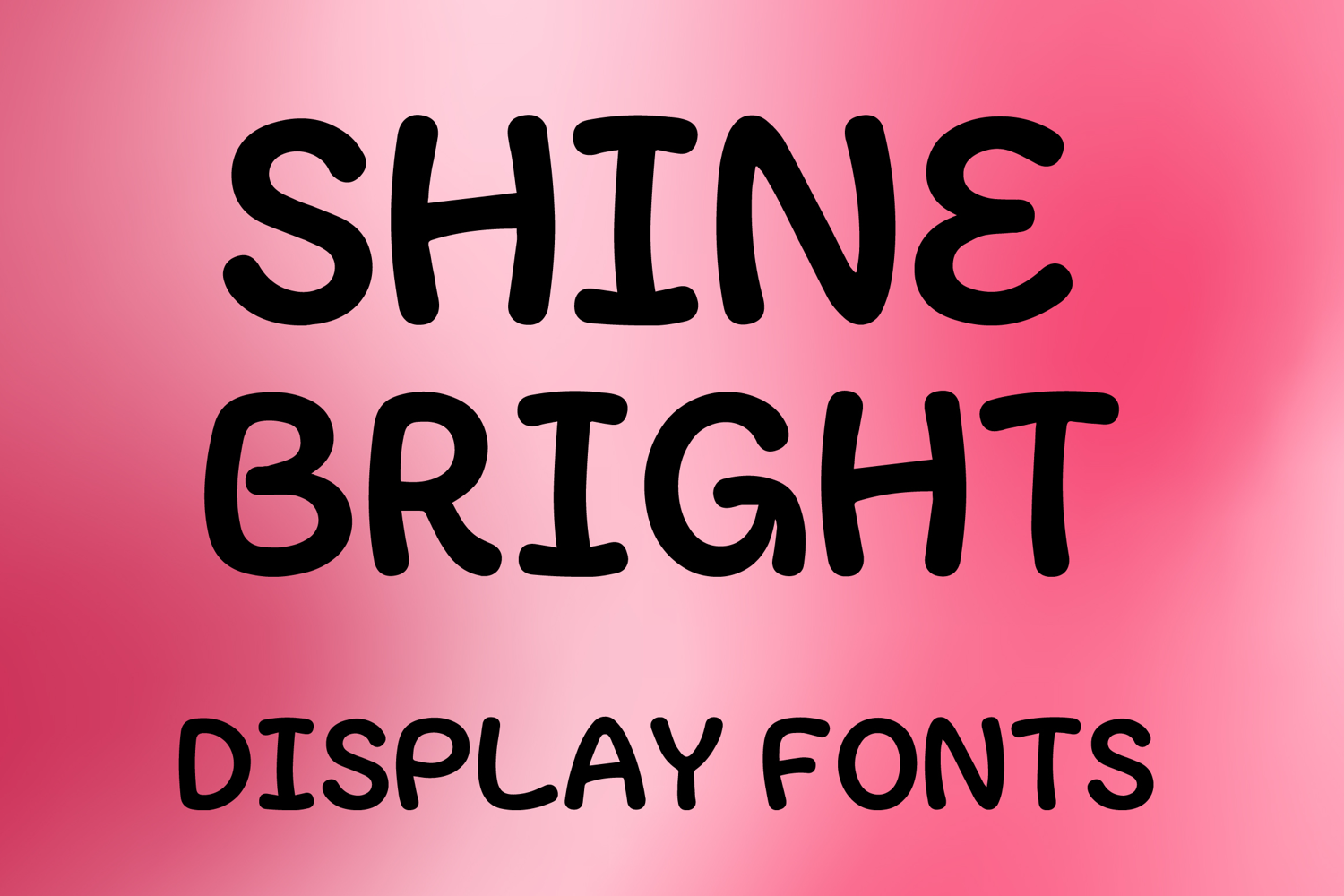
SHINE BRIGHT
SHINE BRIGHT is a playful display font with a bold hand-drawn style and cheerful modern charm. Its uppercase letterforms feature thick smooth strokes, rounded edges, and quirky organic details that create a warm, friendly, and eye-catching look. Designed with uppercase letters A–Z and numbers 0–9, SHINE BRIGHT is perfect for branding, posters, packaging, invitations, quotes, social media graphics, and creative projects that need a joyful and memorable statement.